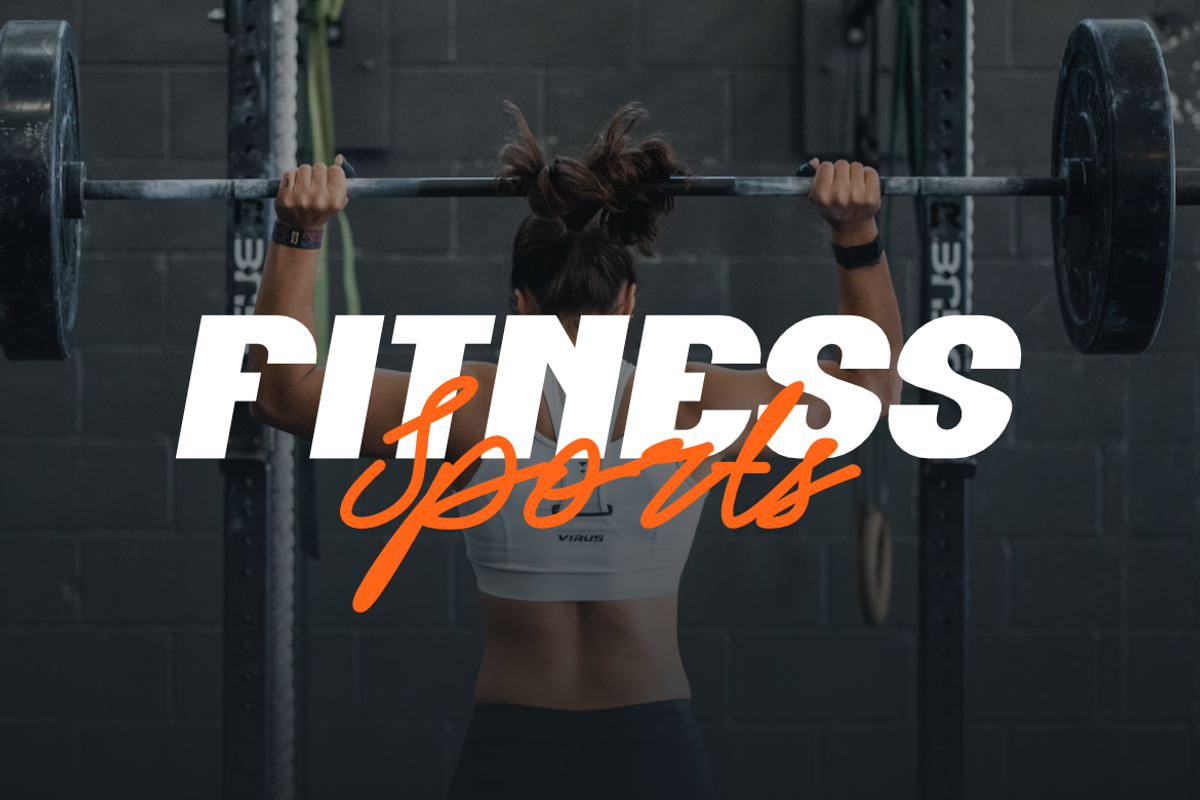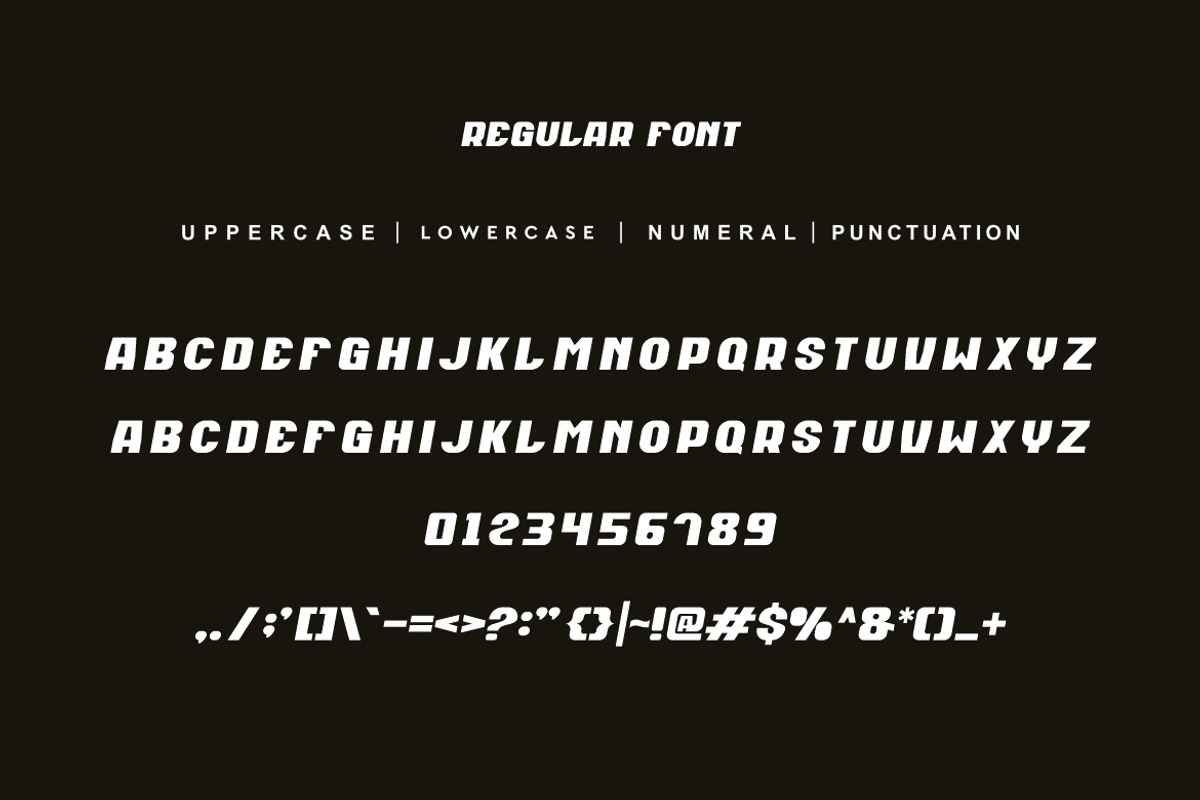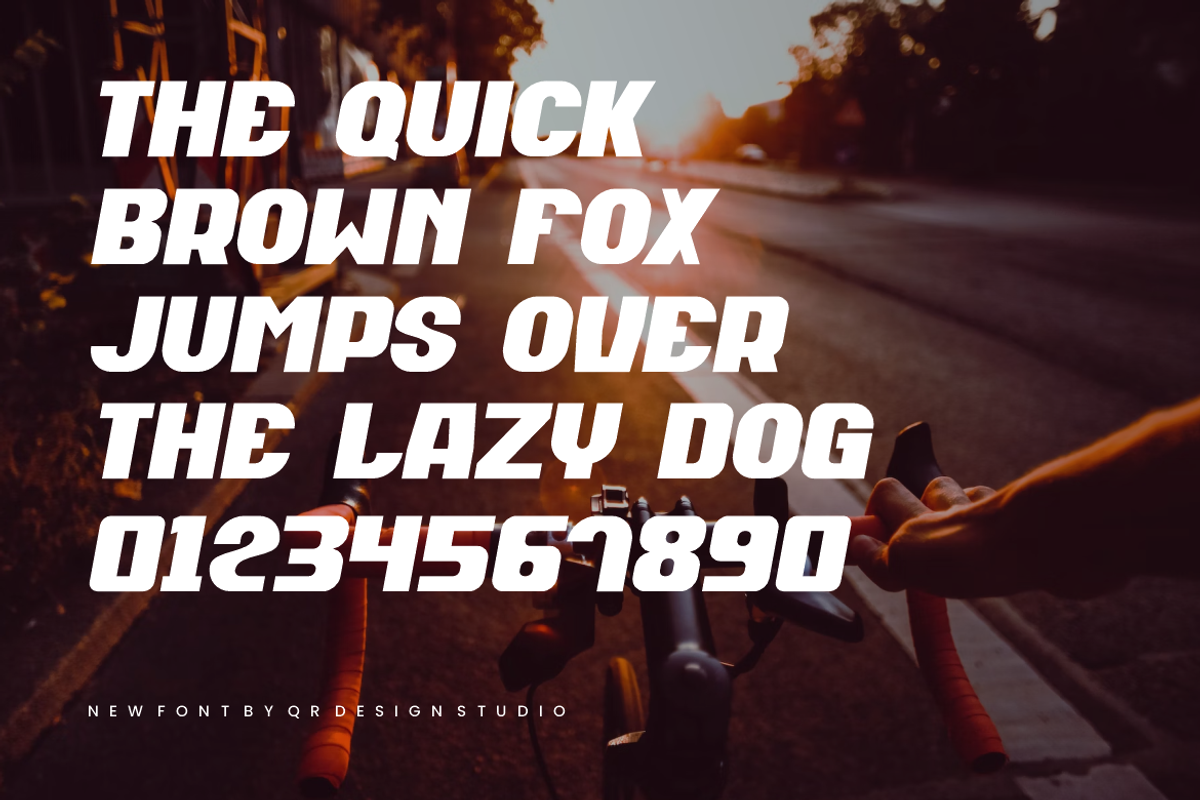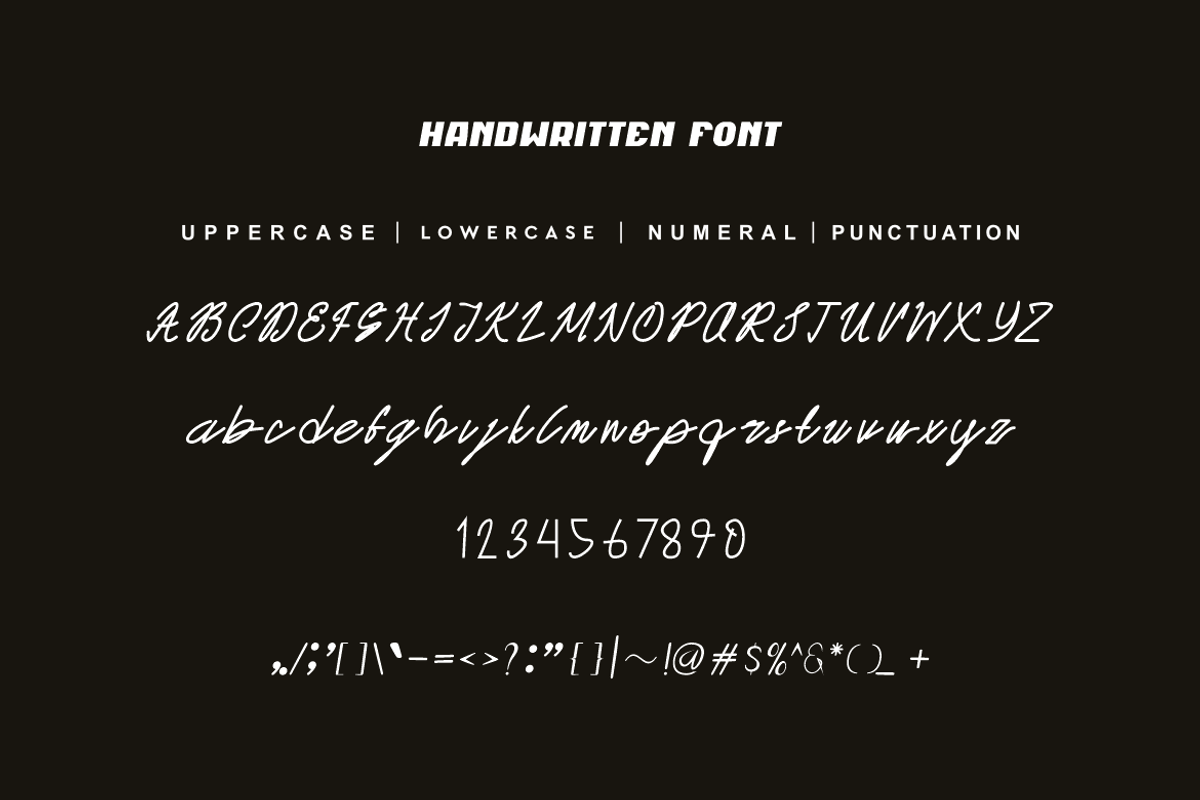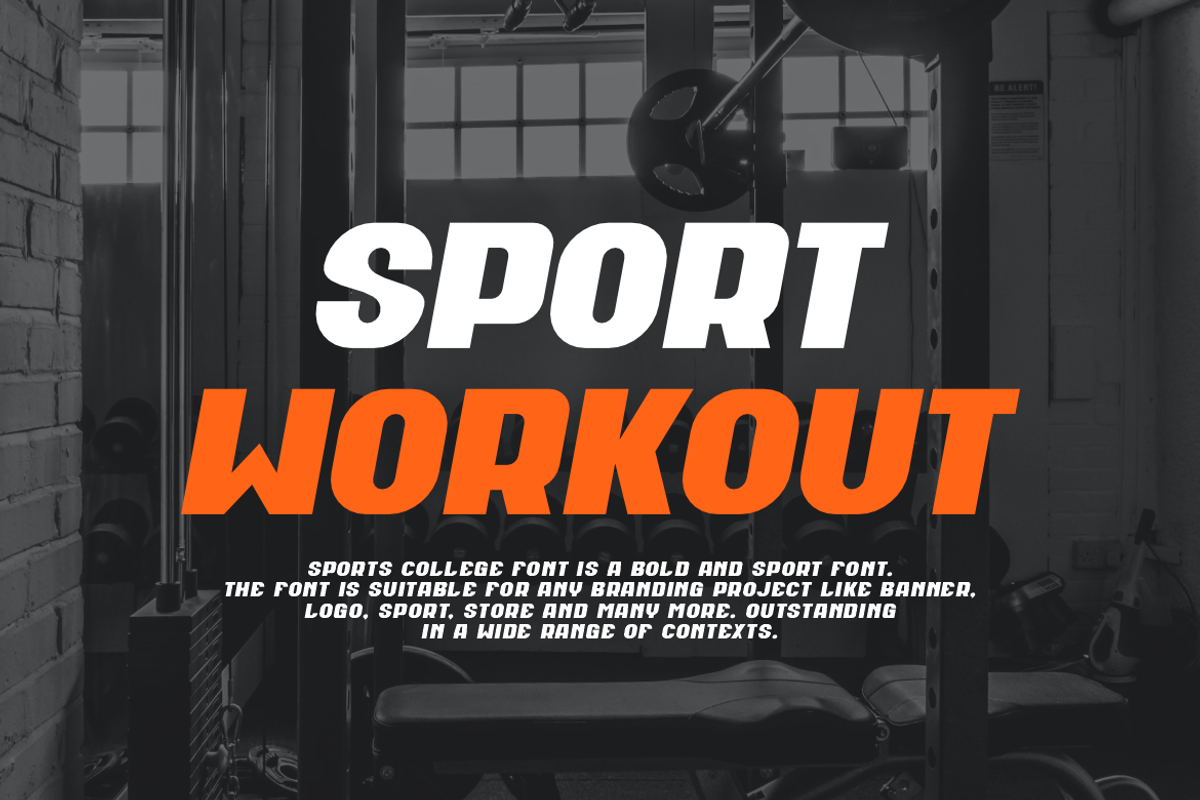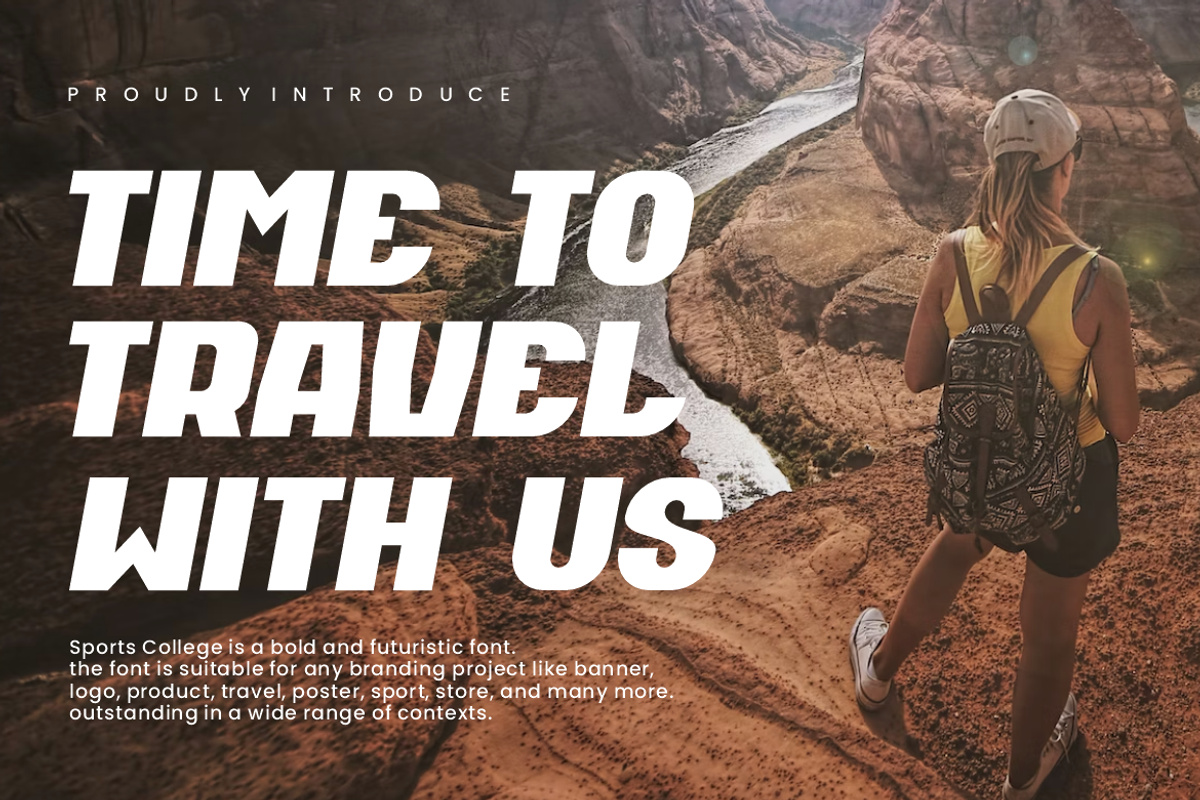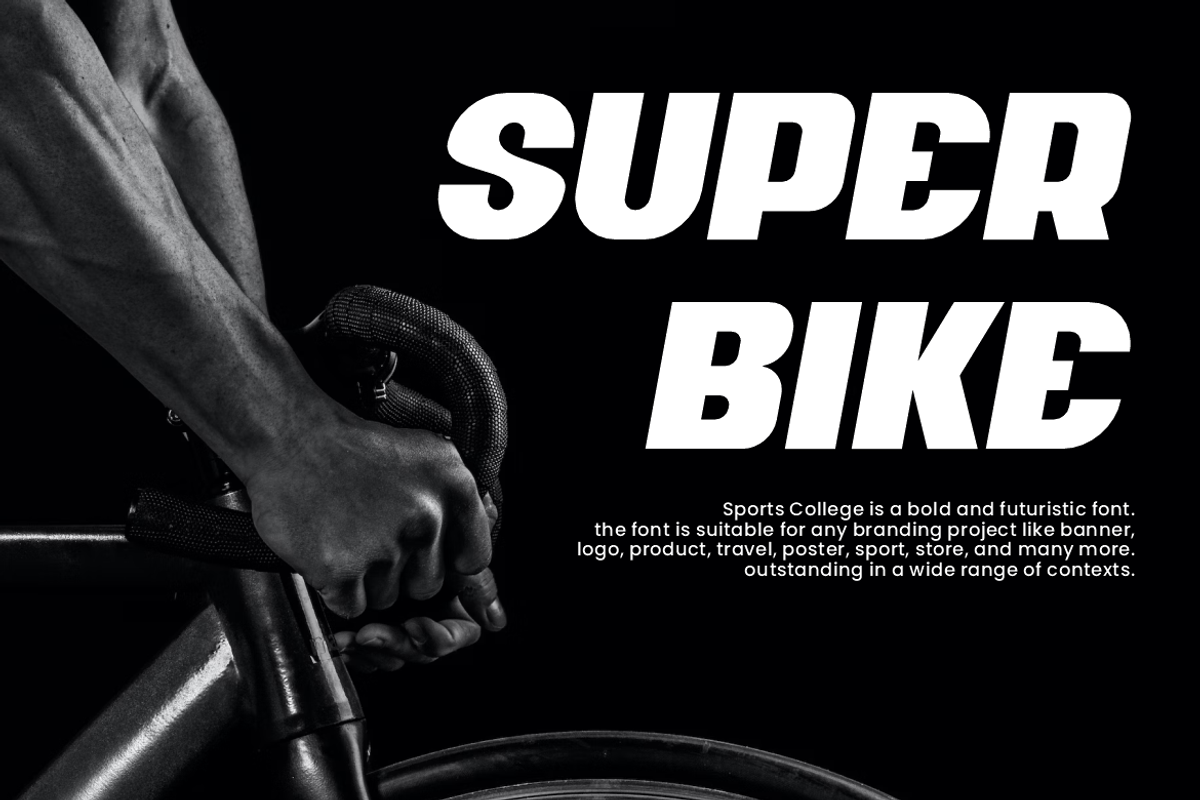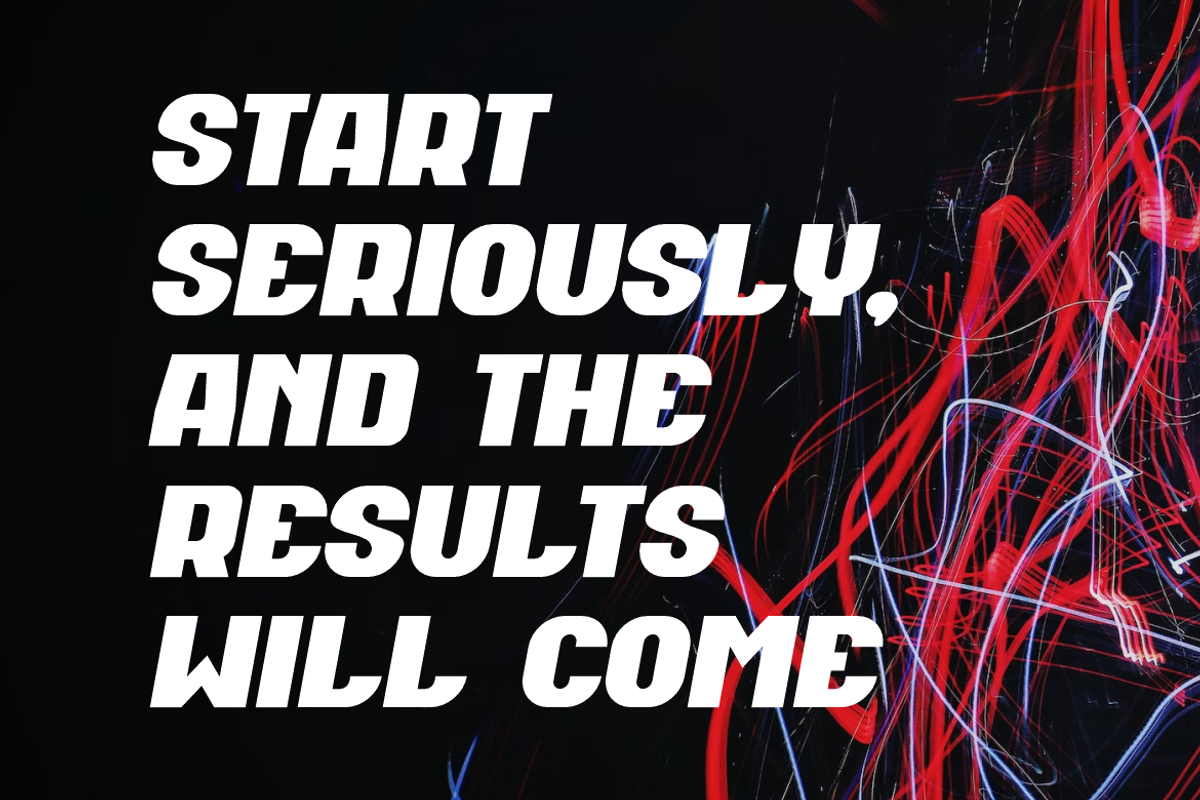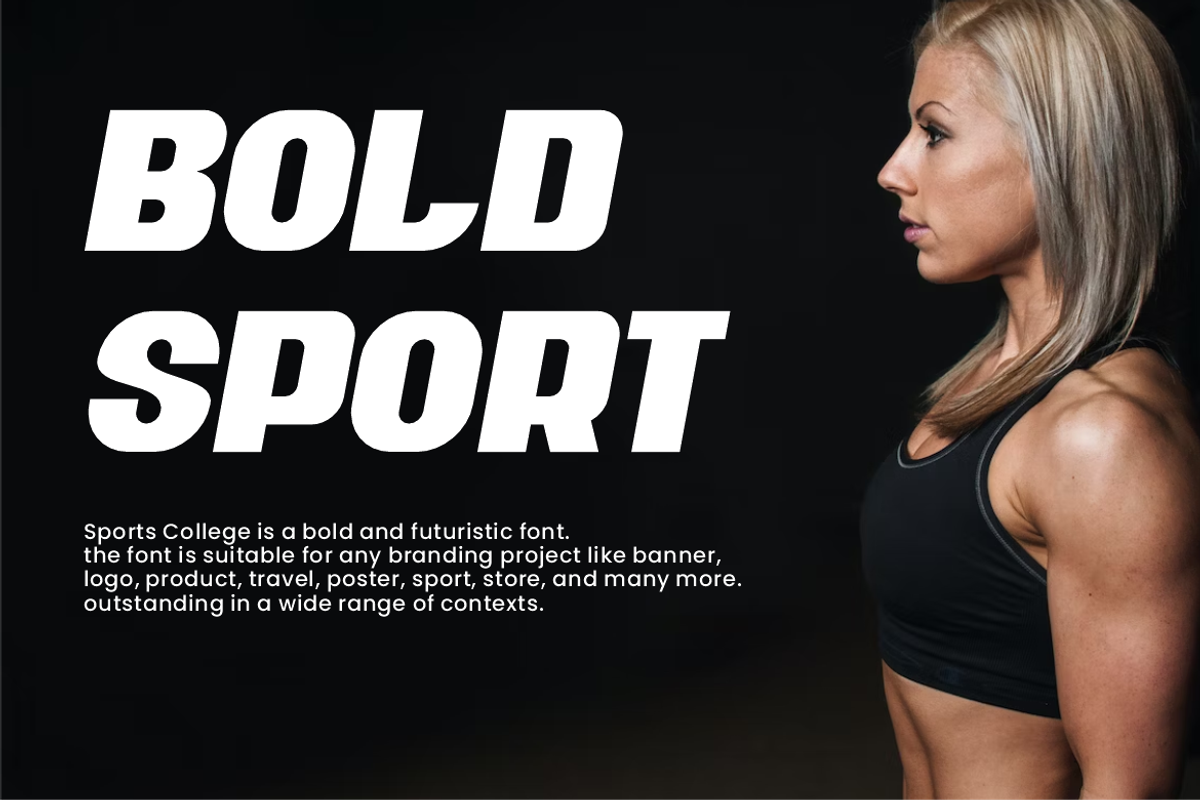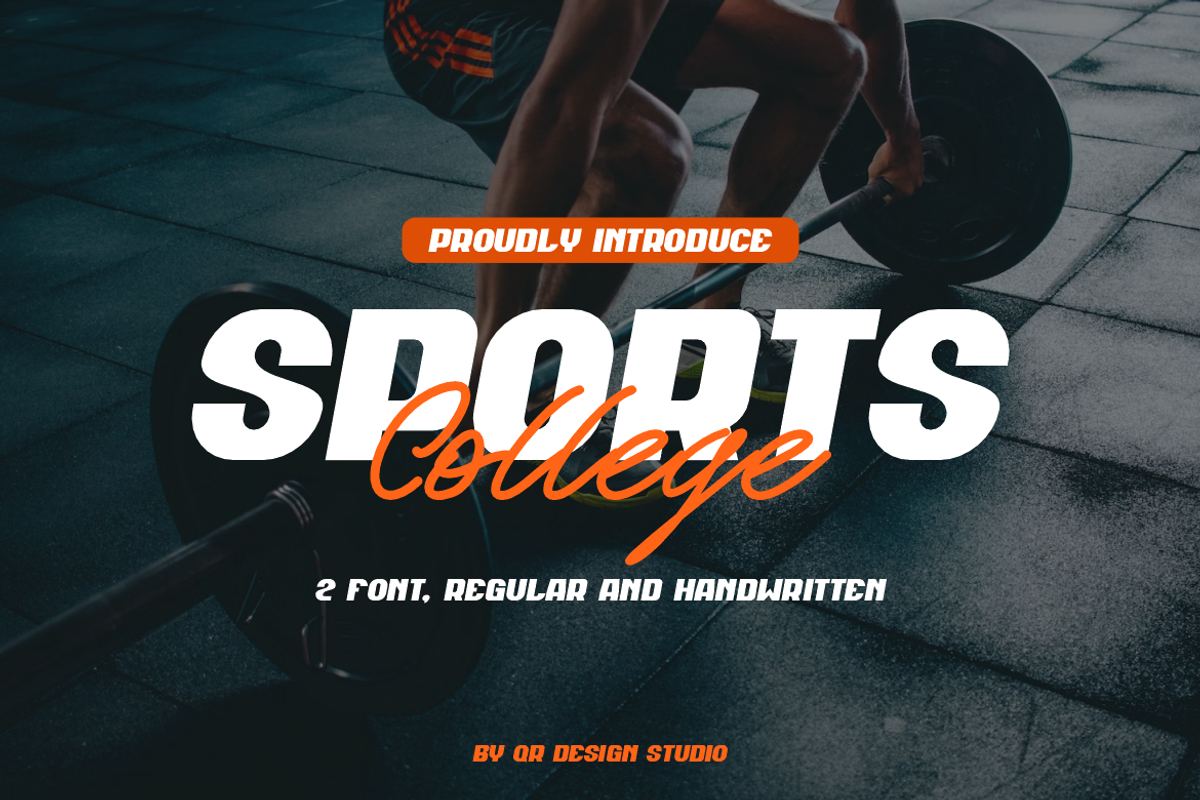
Sports College - Font Duo
Sports College - Font Duo is a bold and authentic display font. The font is suitable for any branding project like poster, logo, sport, and many more. Outstanding in a wide range of contexts.
Handwritten